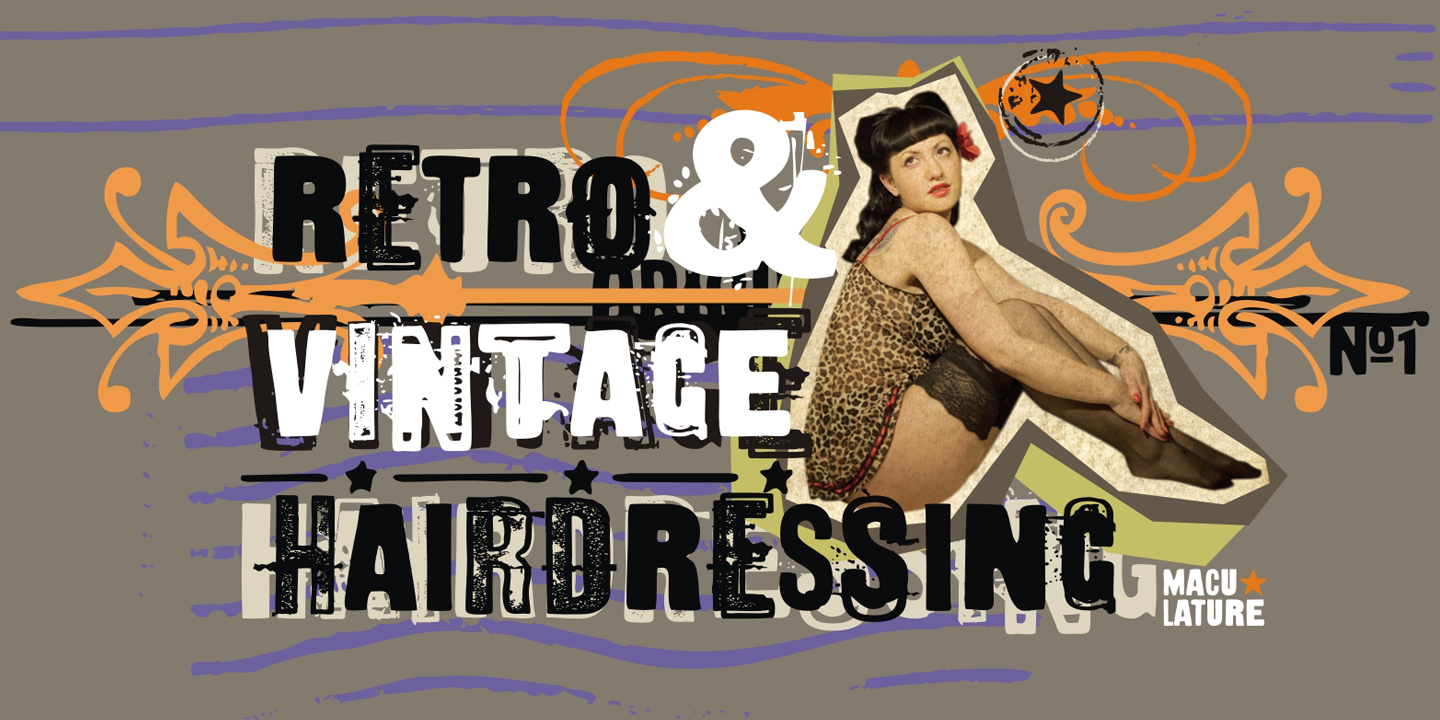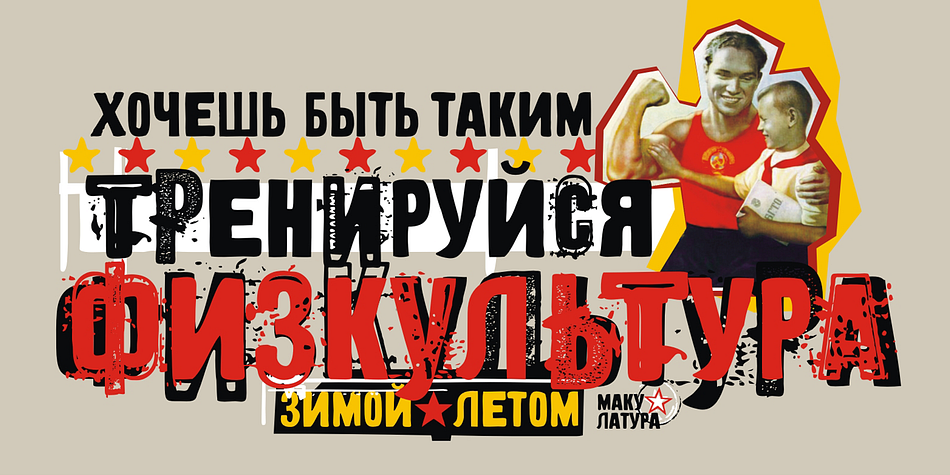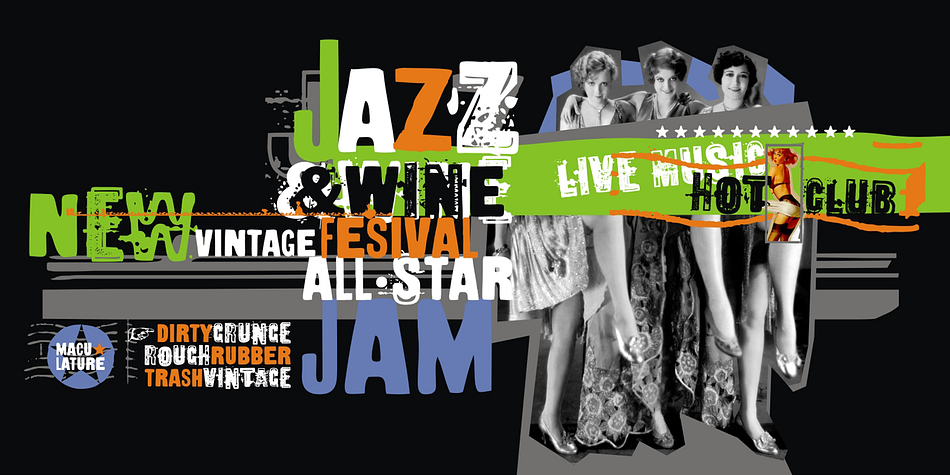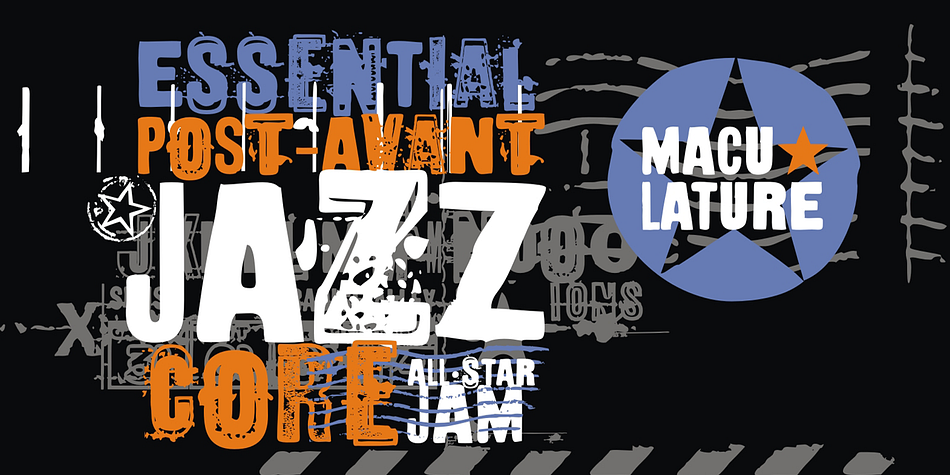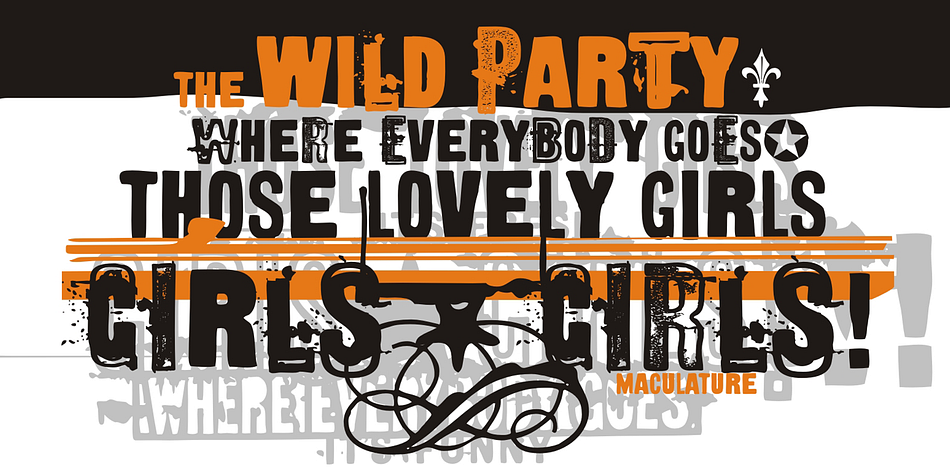
Maculature is a grunge font published by PESIC.
Maculature features grunge, uneven looking letterforms. They were inspired by letters from old posters and advertisements.
Capital glyphs are, although damaged, satisfactorily legible, whereas instead of lowercase letters, capital glyphs are placed, also featuring nearly abstract, hard to read dirty looks damaged spots and stains. The overall visual experience is rough. Capitals are legible and of small size, whereas the second group can be used only in bigger size, whereby rendering an interesting text texture in the course of alternate use.
The font contains all the Latin accented characters used in European languages, Cyrillic and various ancillary graphemes, ornaments and rough lines.